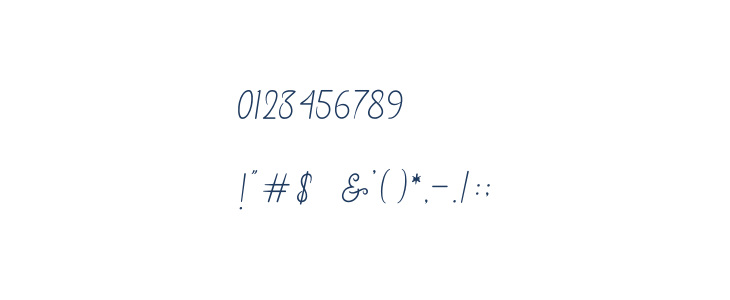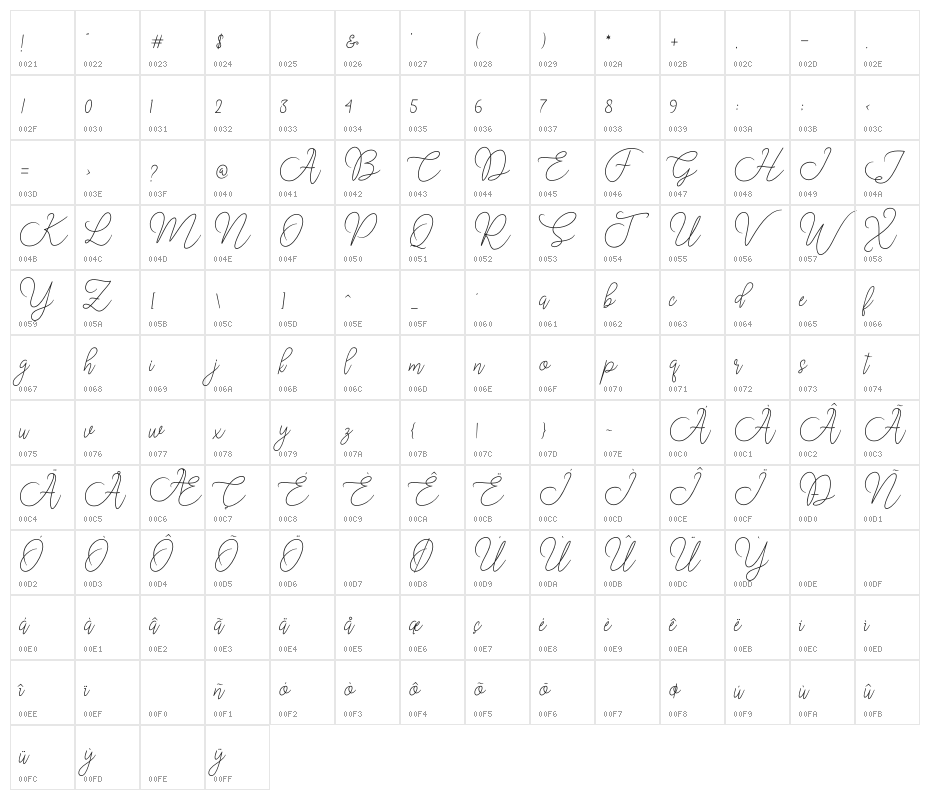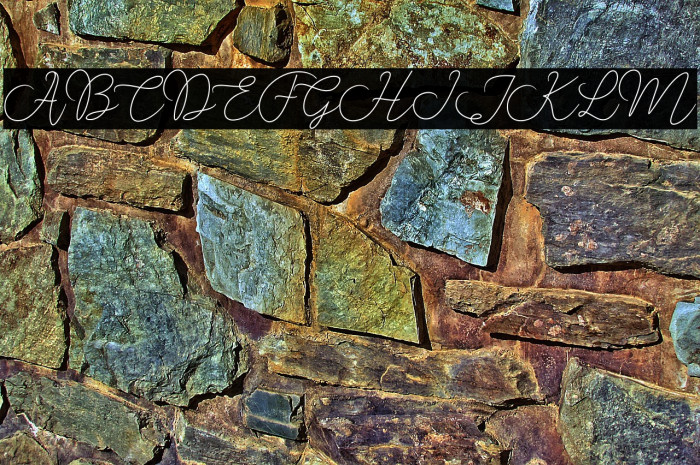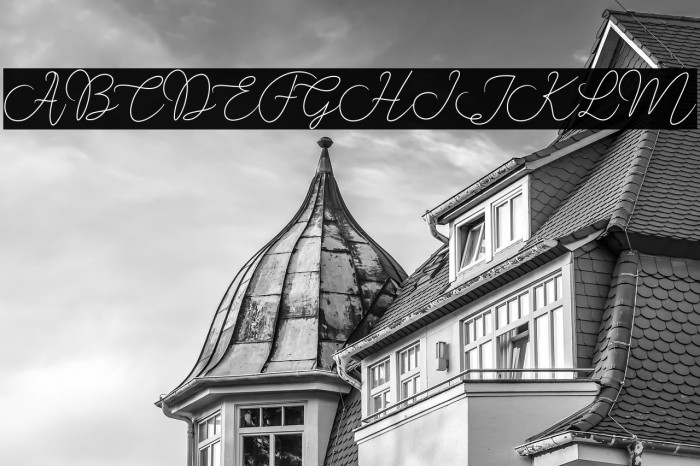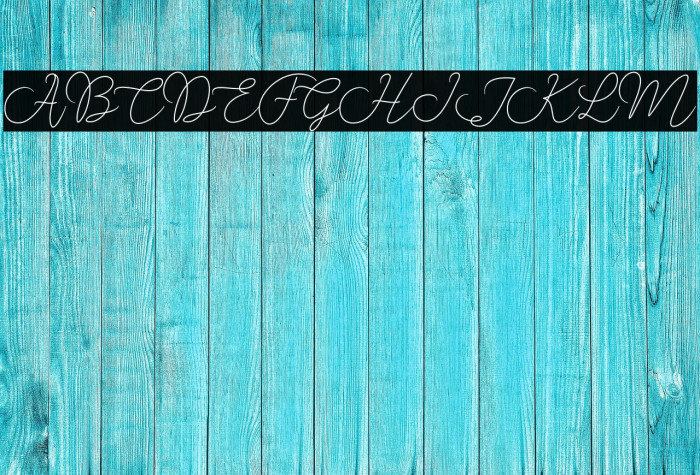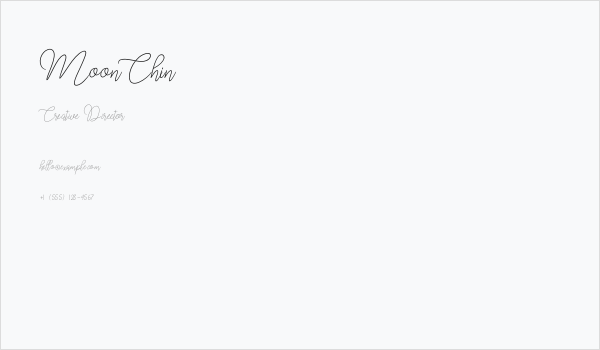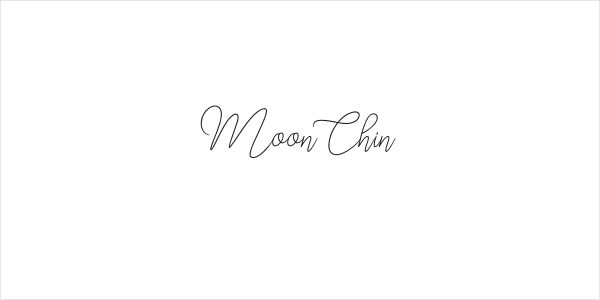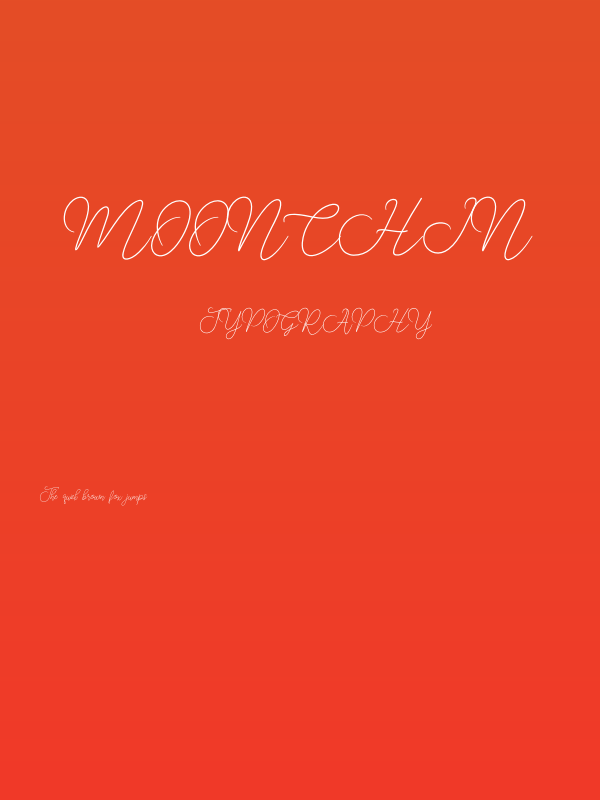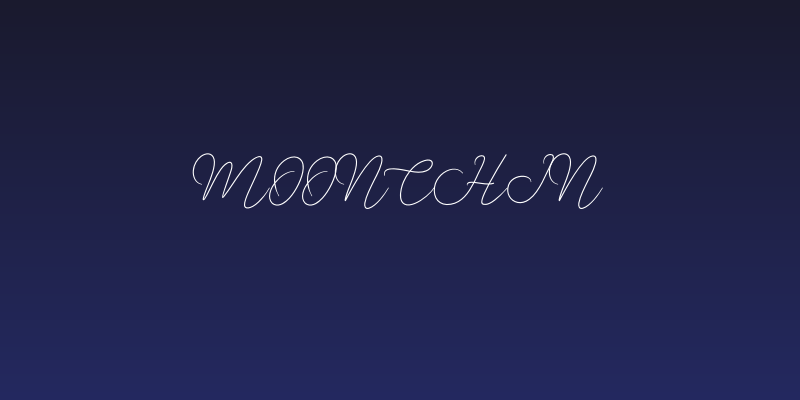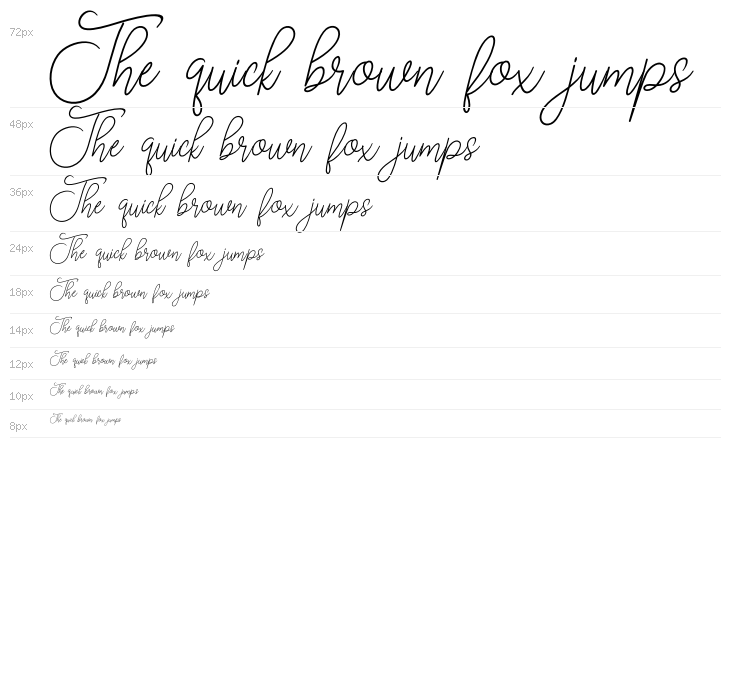
MoonChin Font
MoonChin Description
This elegant script font features a flowing, cursive style with delicate loops and swashes. The uppercase letters are characterized by their graceful, elongated forms, while the lowercase letters maintain a consistent, fluid motion. The numerals are designed to complement the overall script style, offering a cohesive look. Special characters are thoughtfully integrated, maintaining the font's sophisticated aesthetic. The font's overall appearance is both refined and approachable, making it suitable for a variety of design applications.